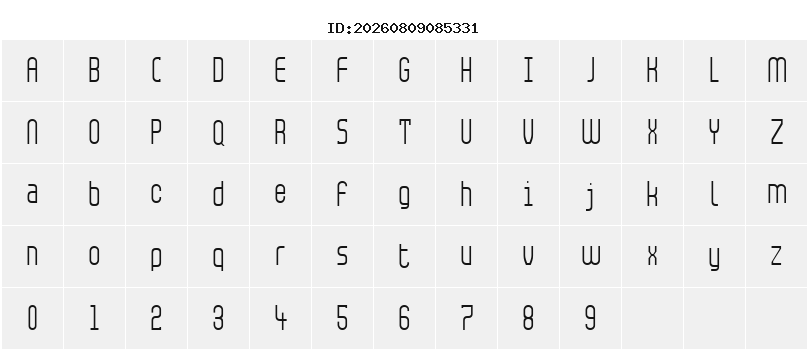
• Font Name: Perkeo
• Font ID: Brendel :Perkeo
• Full Font Name: Perkeo
• Version: Brendel :25.08.1995
• PostScript Name: Perkeo
About Perkeo.ttf
Perkeo.ttf is a modern, elegant sans-serif font designed for ultimate readability and visual harmony. Perfect for branding, headlines, web design, and print materials.